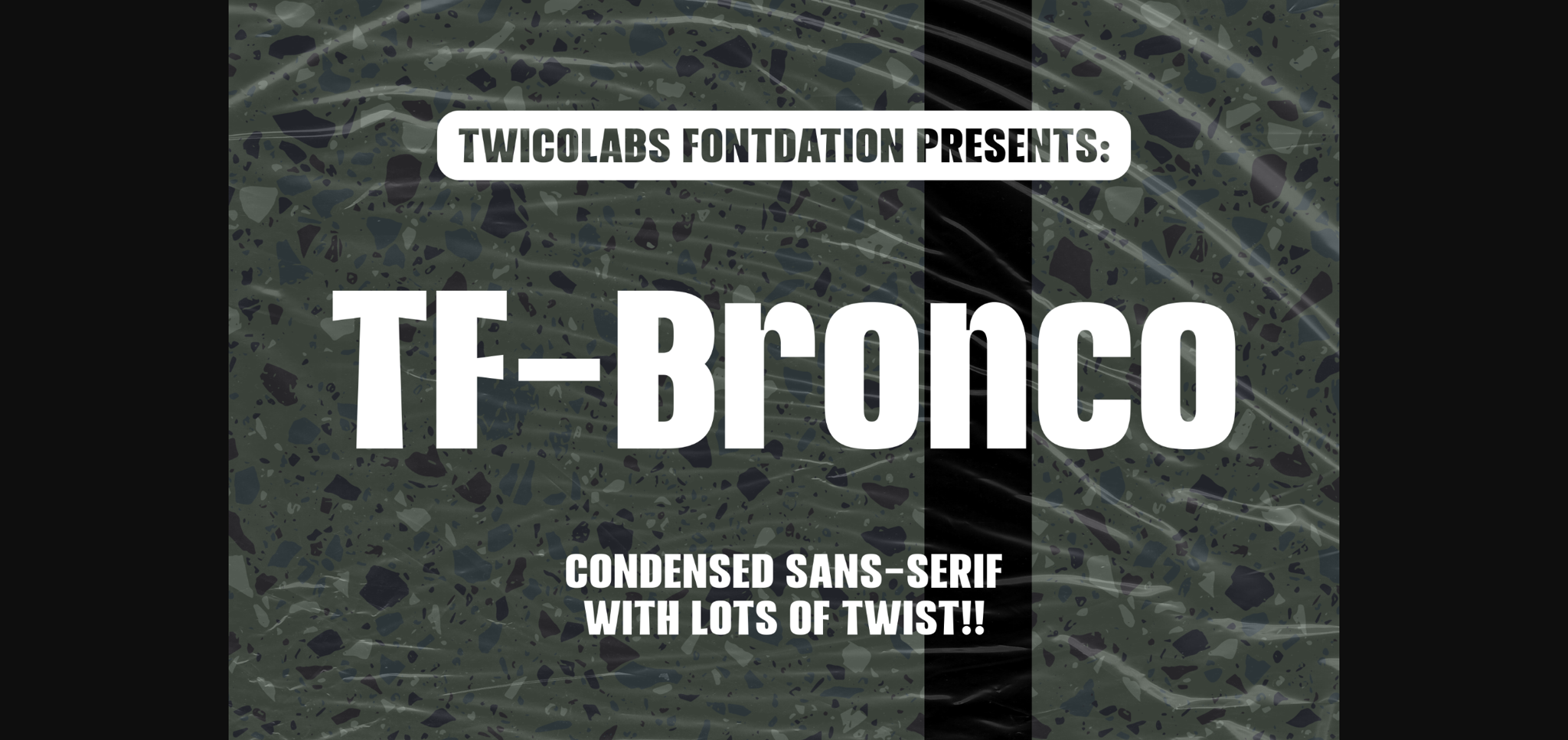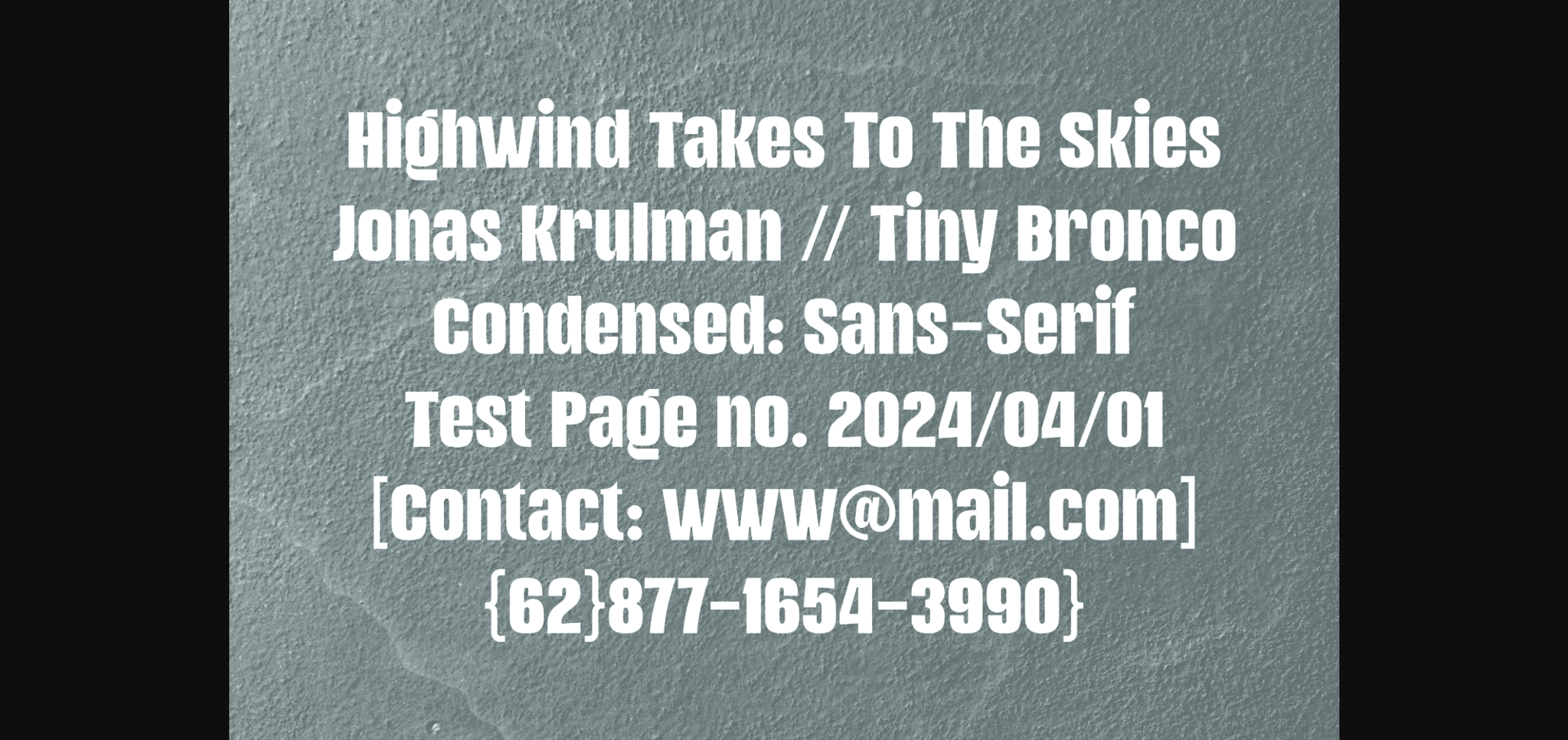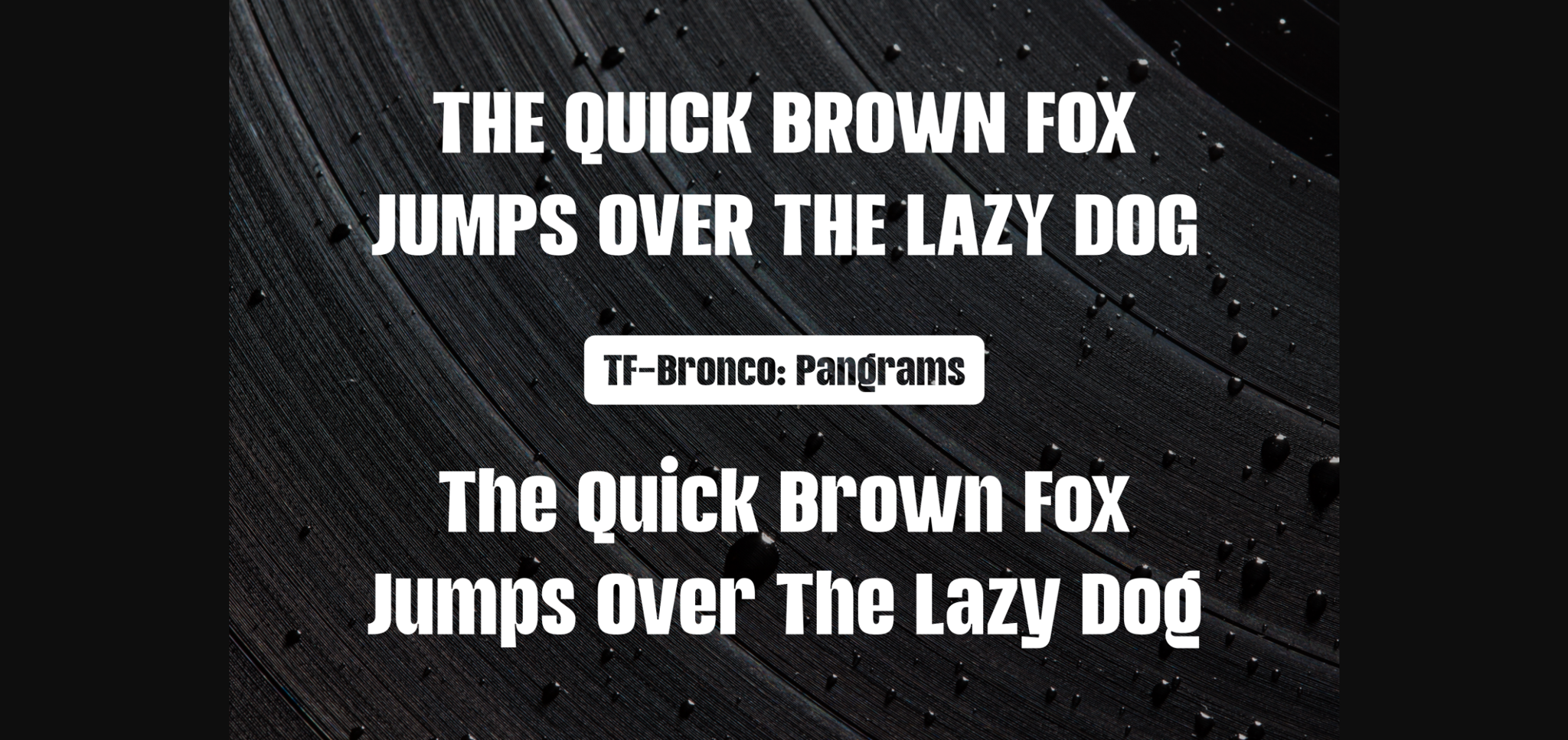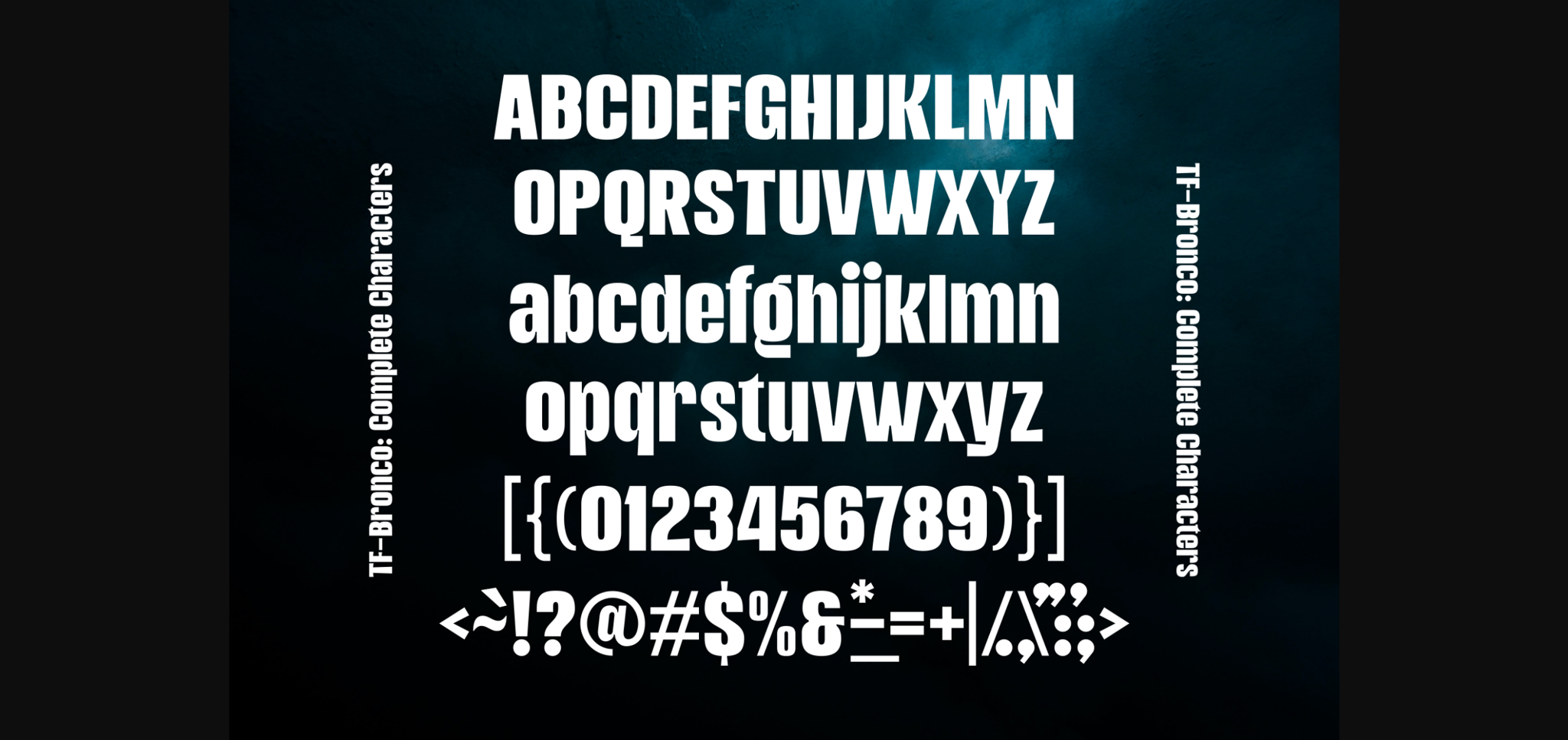
TF-Bronco Font
About TF-Bronco Font
Introducing TF-Bronco, a new condensed sans-serif from us to you. Inspired by the old advertisement letters, with a hint of modern touch. Suits best designs that’ll need a big size to stand out, such as headlines, posters, logo/branding, etc.